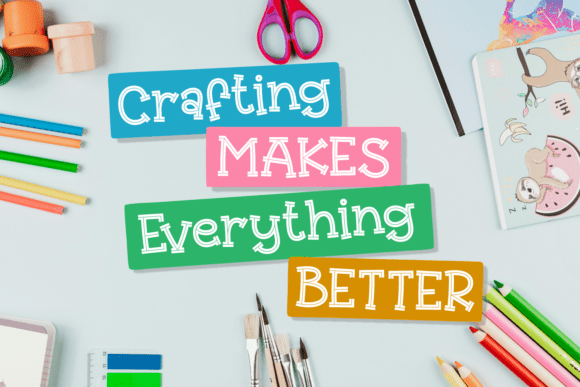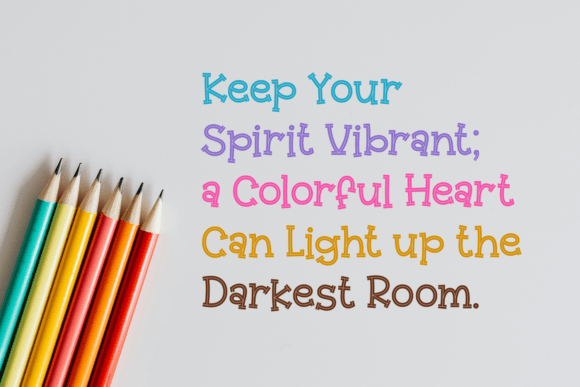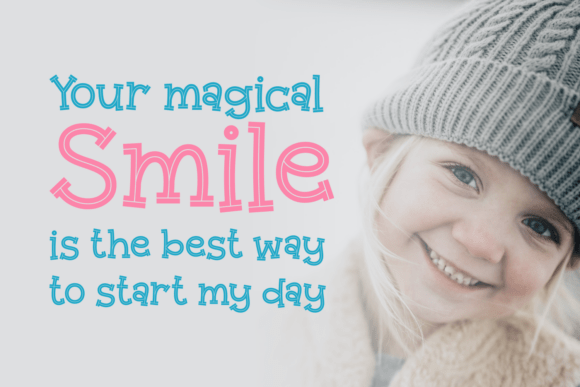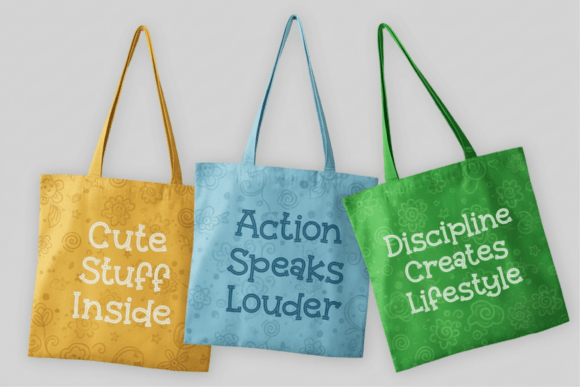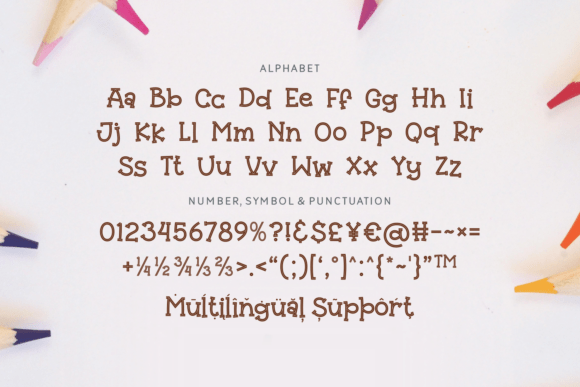
Introduction to Joyful Twisting Font
Have you ever felt that perfect rush of creativity when bringing a design project to life? Perhaps it was a late-night brainstorming session, a burst of inspiration from a favorite artist, or the thrill of finally seeing your vision take shape. Whatever the moment, one thing is certain – it’s a feeling we all crave as designers. And for those seeking to infuse their projects with a dash of whimsy and personality, the Joyful Twisting Font is here to bring that magic to life.
This charming, hand-crafted font is more than just a design resource – it’s a way to add a touch of high-quality, artisanal flair to any creative project. With its textured strokes and playful “stitching” effect, the Joyful Twisting Font is perfect for designers looking to elevate their work and stand out from the crowd.
Whether you’re working on a free download, a digital greeting, or a vibrant headline, this versatile font is sure to bring a smile to your audience’s face. And with its transparent background, the possibilities are endless – from tote bags to websites, the Joyful Twisting Font is the perfect addition to any design project.
Key Features of Joyful Twisting Font
- Unique, hand-drawn style with a playful twist, perfect for adding a touch of whimsy to your design.
- Comes with a transparent background, making it easy to overlay on any image or design.
- Designed to be highly customizable, making it perfect for designers who want to add their own unique touch.
Honest Review: Joyful Twisting Font
As a designer, I’m always on the lookout for high-quality design resources to elevate my creative projects. Recently, I had the chance to try out the Joyful Twisting Font, and I’m here to share my honest thoughts.
- ✨ Unique and playful design style that’s perfect for adding a touch of whimsy to your projects.
- ✨ Comes in a range of weights and styles, making it easy to customize to your needs.
- ✨ High-quality, transparent background that’s perfect for overlaying on images or videos.
- ⚠️ Limited character set, which may not be suitable for longer blocks of text.
- ⚠️ Not ideal for professional or formal projects, as the design style may be too playful.
Overall, I think the Joyful Twisting Font is a great addition to any designer’s toolkit. While it may have some limitations, its unique design style and high-quality design make it a great choice for creative projects. With a free download, it’s definitely worth checking out!
How to Use Joyful Twisting Font
The Joyful Twisting Font is a high-quality, unique design resource perfect for adding a creative touch to your projects. With its transparent background, this font is ideal for use in various applications.
To get the most out of the Joyful Twisting Font, experiment with different font sizes, colors, and combinations to create unique and eye-catching designs.
The Joyful Twisting Font is ideal for use in a variety of creative projects, including:
- Branding
- Print designs